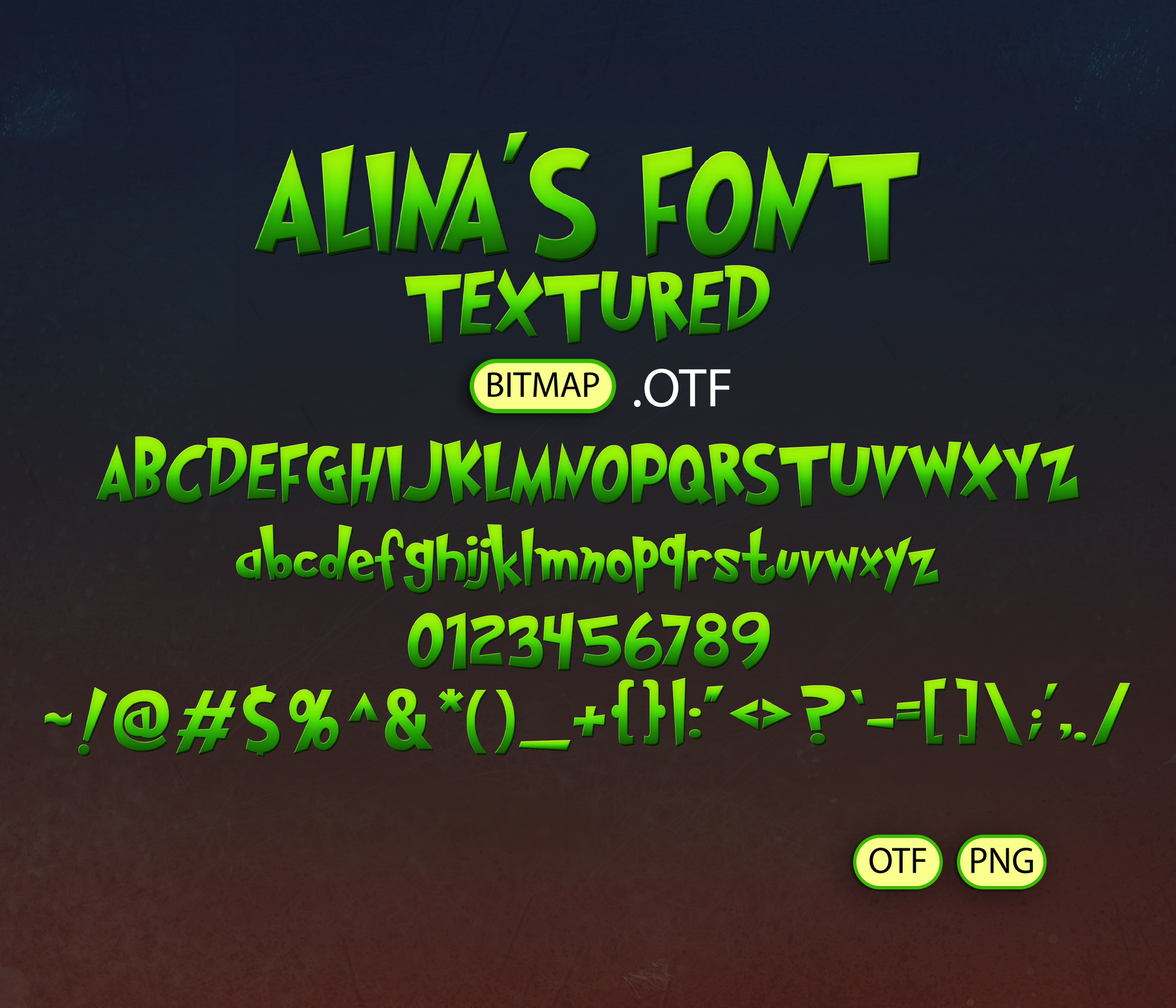
The Whimsical Grump Font Textured
Delve into the heart of Cheerville with our Grump Font, meticulously crafted to embody the whimsical charm of a beloved holiday classic. This textured font is your gateway to creating authentic Grump and Cheerville-themed Christmas decorations, bringing the quirky aesthetics of that imaginative world to your digital canvas.
What Font is Grump Font?
Ever wonder which font encapsulates the whimsical world of Grump? While there are various Grump font generators available, none match the authenticity of our Cheerville Font. This font is meticulously crafted to resemble the original Grump text, setting it apart from any Grump or Cheerville font generator. Use the Cheerville letters and unleash your creativity.
What Can You Do With Grump Textured Font: